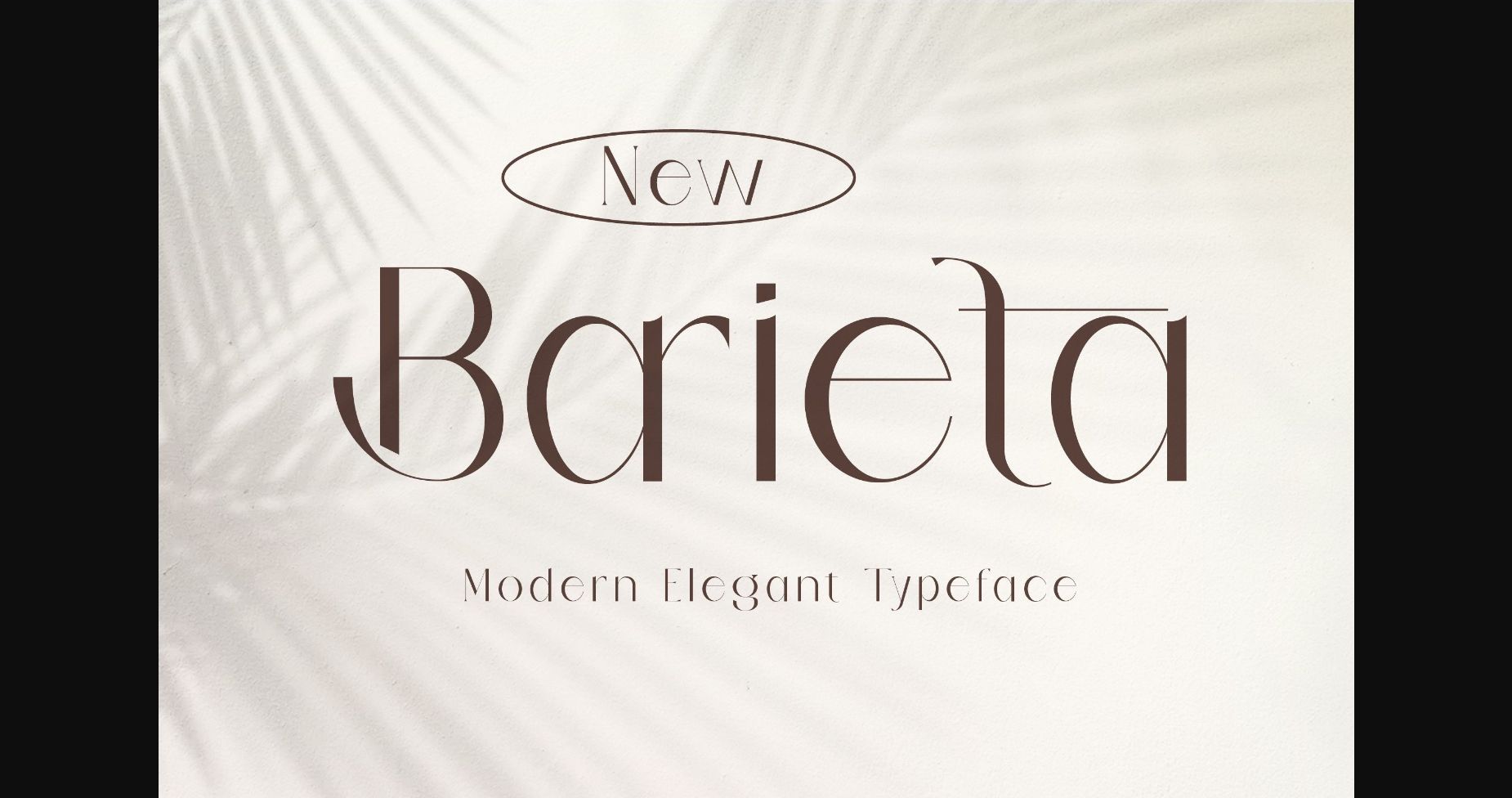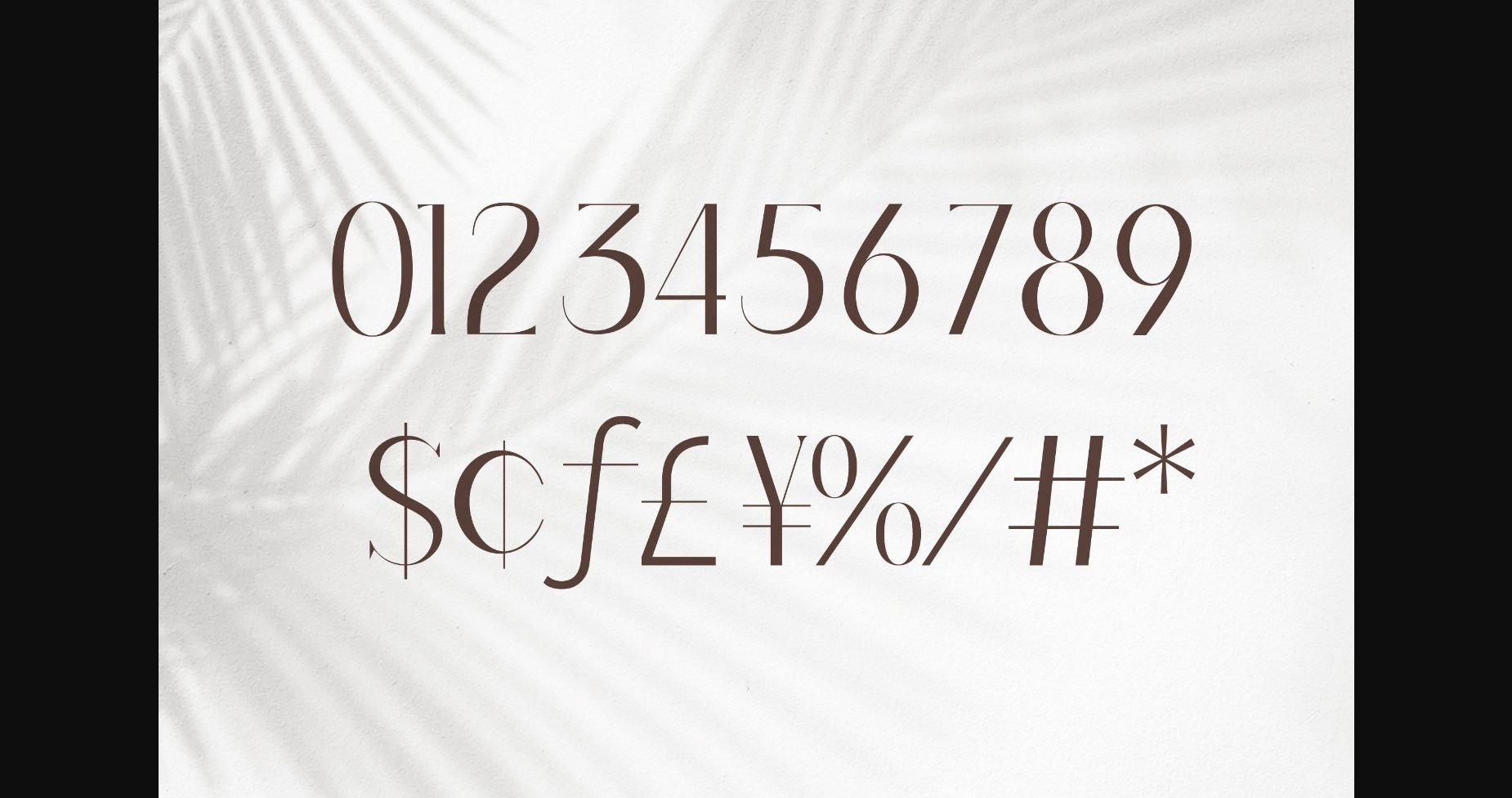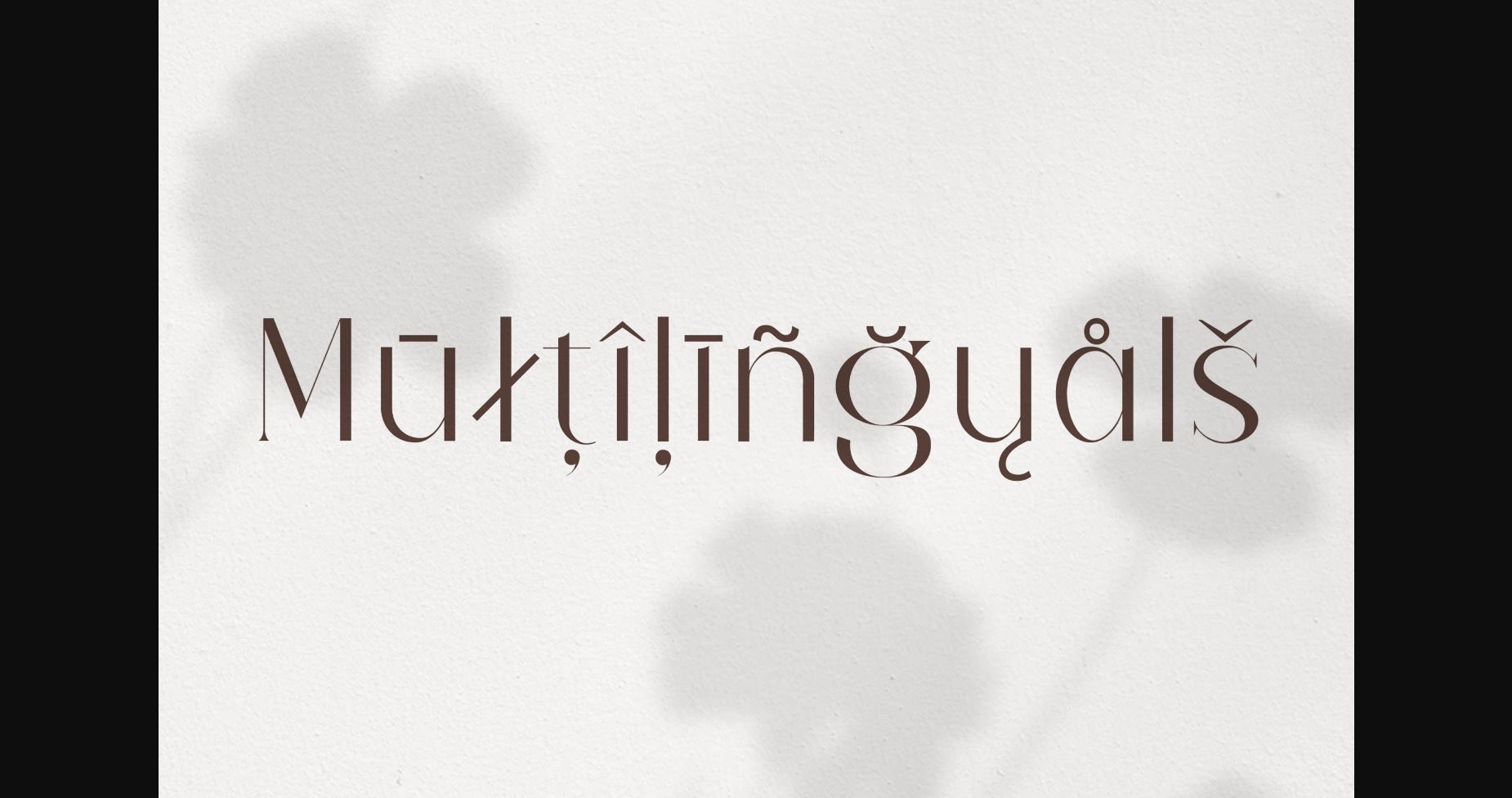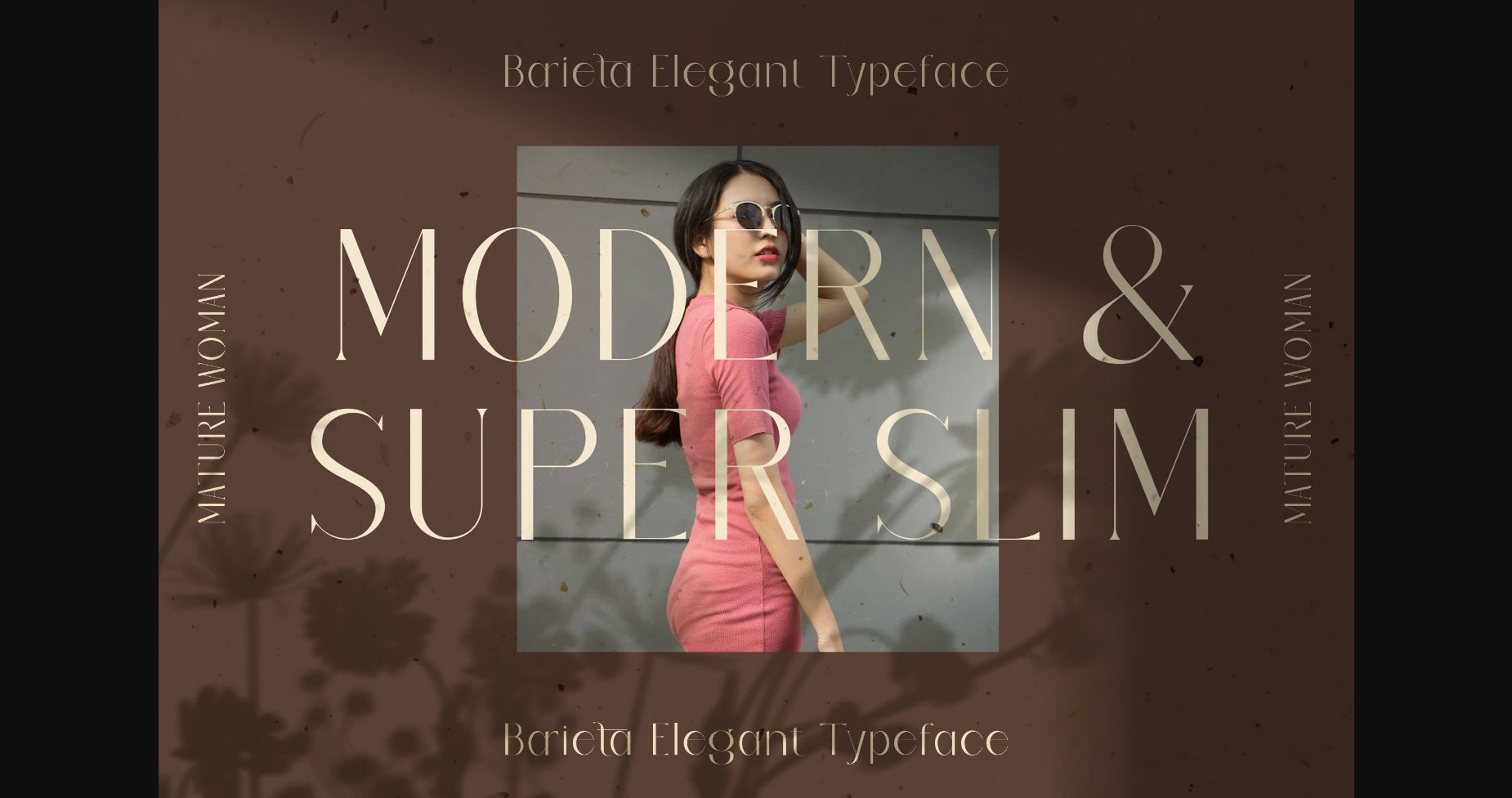
Barieta Font
About Barieta Font
Barieta is a super thin and stylish modern Font, this font is made for those of you who like unusual styles. Barieta font is great for big logo and headline design projects,